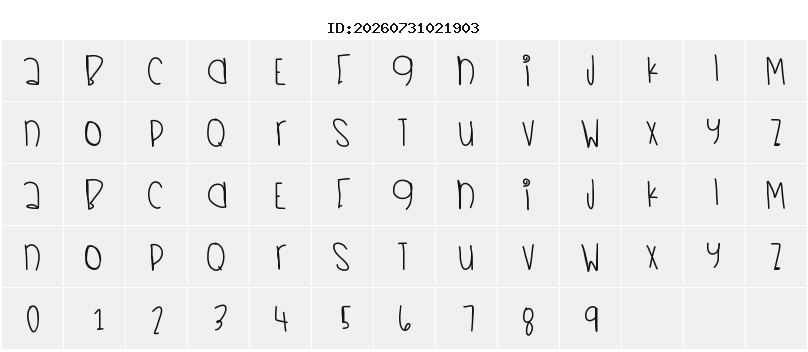
LittleMermaid Preview
• Font Name: LittleMermaid
• Font ID: Des:LittleMermaid
• Full Font Name: LittleMermaid
• PostScript Name: LittleMermaid
About LittleMermaid.ttf
LittleMermaid.ttf is a modern, elegant sans-serif font designed for ultimate readability and visual harmony. Perfect for branding, headlines, web design, and print materials.